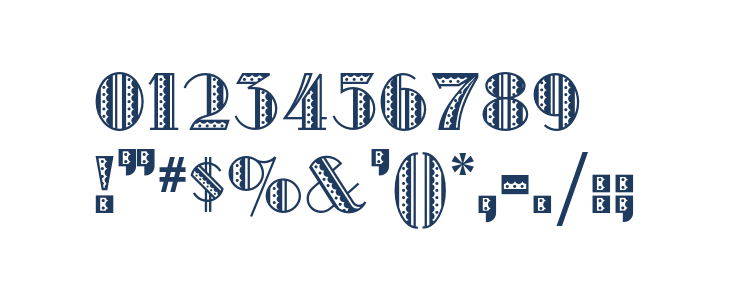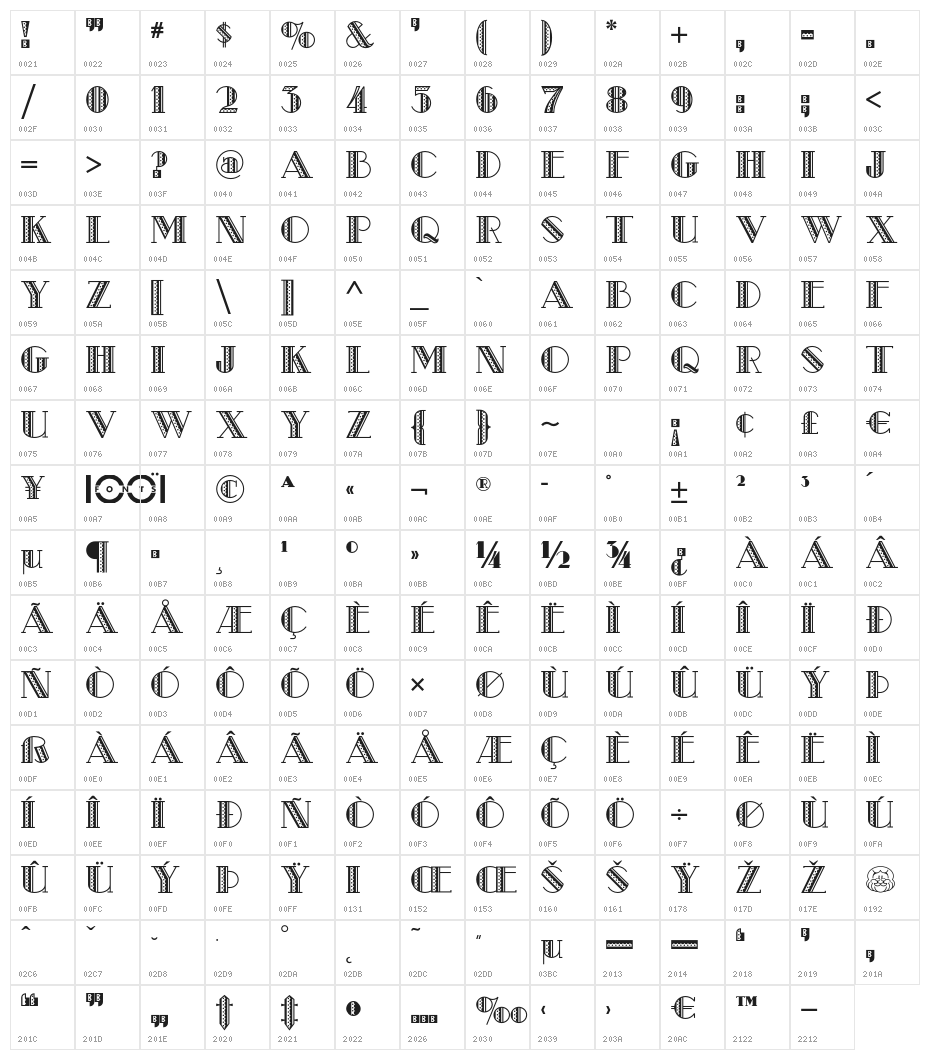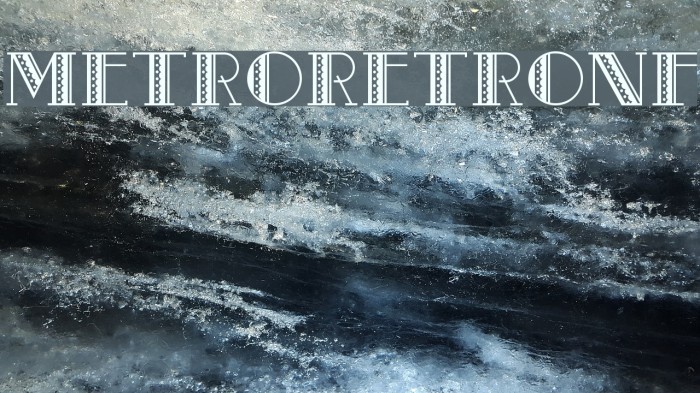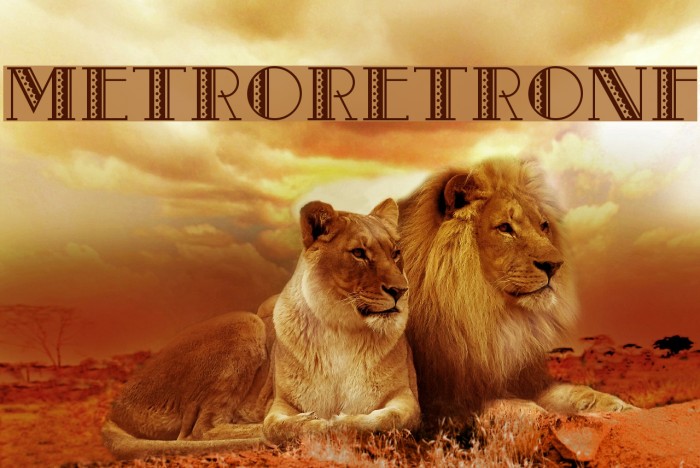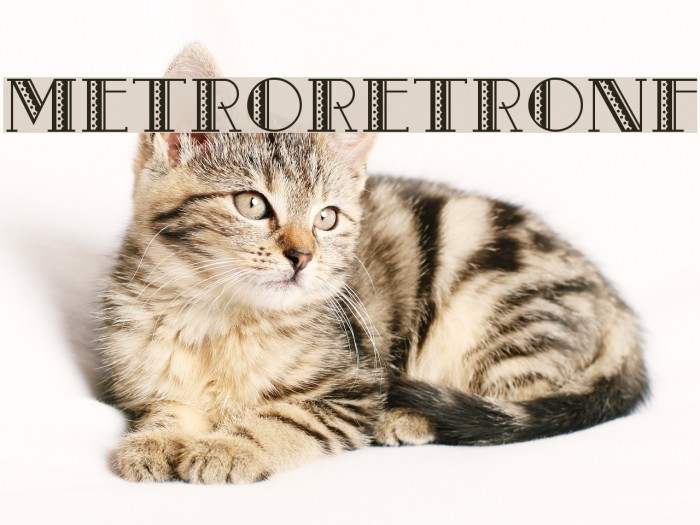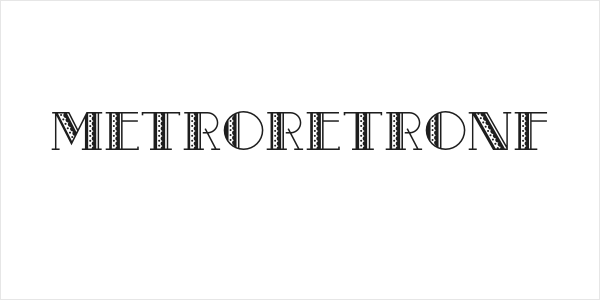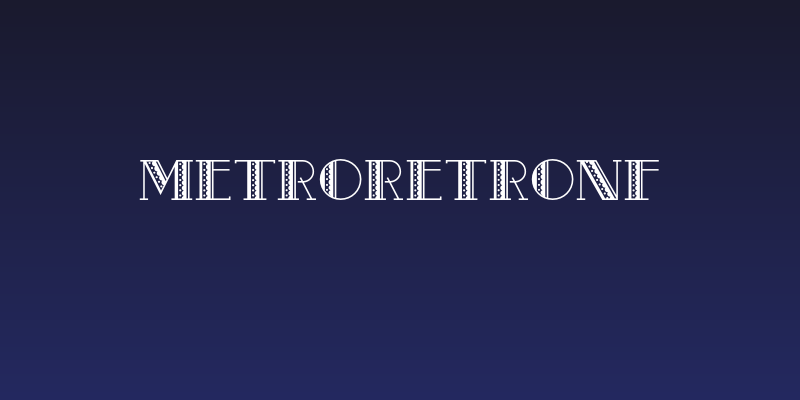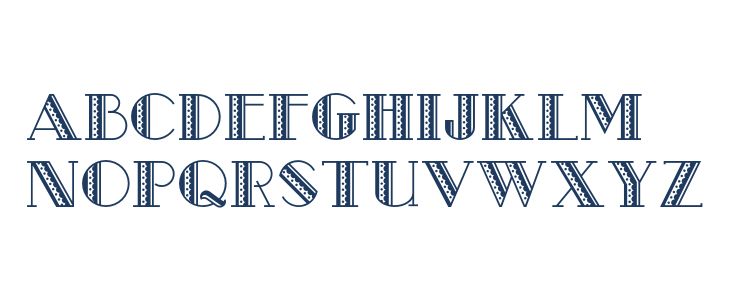
MetroRetroNF Font
MetroRetroNF Description
This font features a bold and decorative style with a retro flair, characterized by its unique use of patterns and lines within each letterform. The uppercase letters are particularly striking, with intricate detailing that adds a sense of depth and texture. The numbers and special characters maintain this decorative theme, making them stand out with a playful yet sophisticated appearance. The font's design is reminiscent of vintage signage, evoking a sense of nostalgia while remaining versatile for modern applications. Its distinct style makes it suitable for projects that require a touch of elegance and creativity.
| Overall Style | Vintage |
| Proposed Projects | Ideal for vintage-themed posters, retro branding, creative packaging, and eye-catching headlines. |